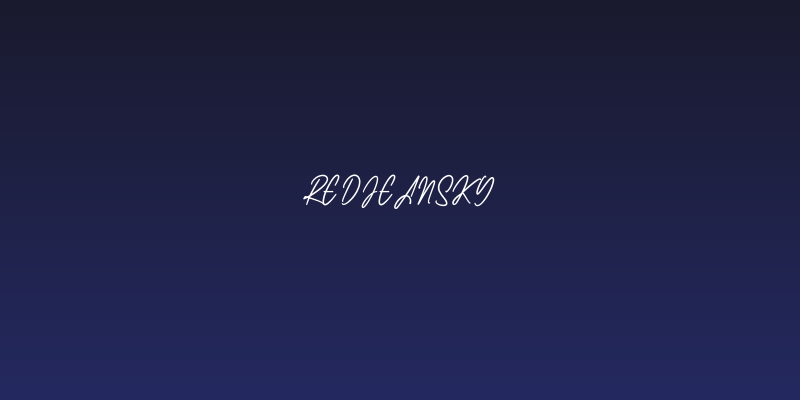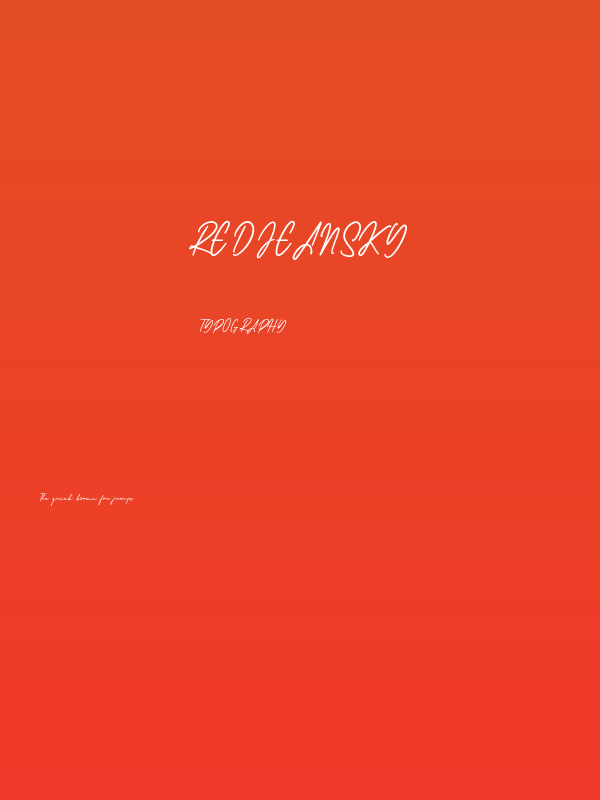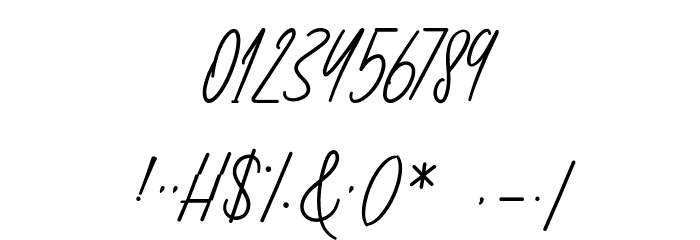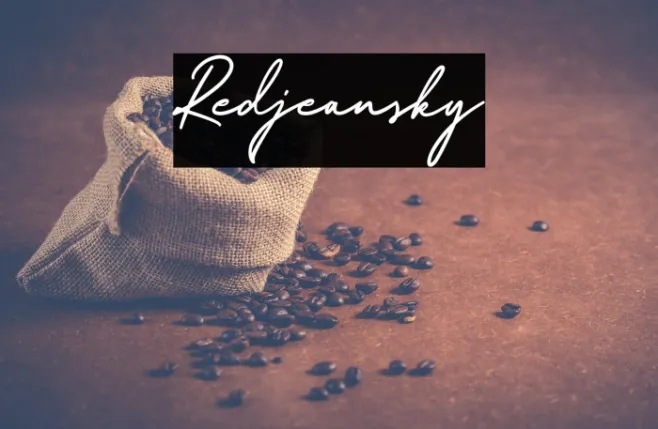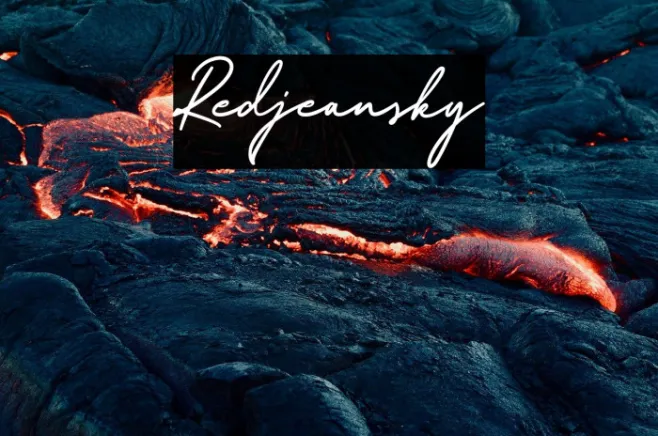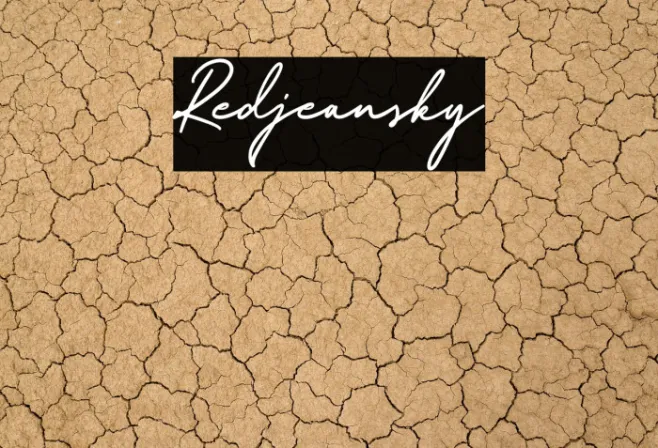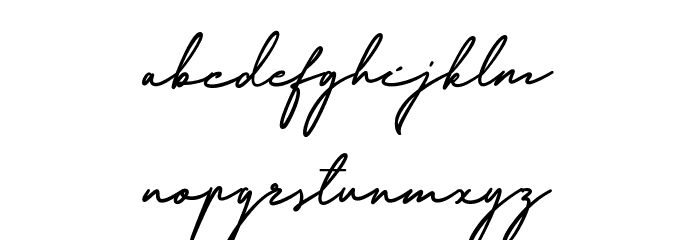
Redjeansky Font
Redjeansky Description
This font features a flowing, cursive style that exudes elegance and sophistication. The letters are connected in a smooth, continuous manner, giving it a handwritten appearance. The uppercase letters are slightly more elaborate, with graceful loops and curves, while the lowercase letters maintain a consistent flow. The numerals and special characters are designed to match the overall aesthetic, ensuring a cohesive look. This font is perfect for projects that require a personal touch, such as invitations, greeting cards, or branding materials.
| Proposed Projects | Ideal for wedding invitations, personal branding, greeting cards, and elegant stationery. |